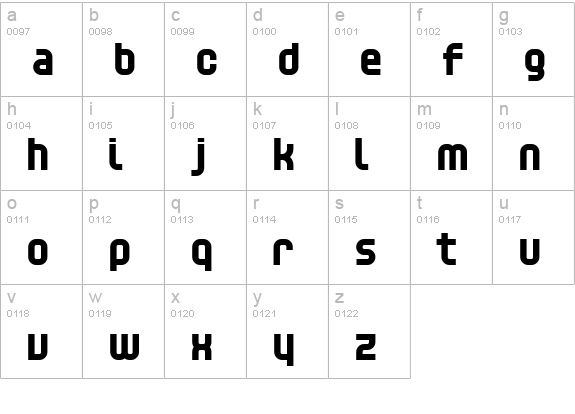
Unisect Black is a maximum-weight, dramatic variant in the Unisect typeface family \xE2\x80\x94 well suited to maximum-impact headlines, posters, and packaging.
Unisect Black font is a stunning display typeface that exudes elegance and sophistication. Its bold and sleek design makes it perfect for creating eye-catching headlines, titles, and logos. With its sharp edges and clean lines, Unisect Black adds a touch of modernity to any design project. This font is not only visually appealing but also highly versatile. It can be used in a wide range of creative projects, from print materials such as posters and brochures to digital designs like websites and social media graphics. Whether you're working on a fashion brand, a tech startup, or a luxury magazine, Unisect Black will elevate your typography to new heights. One of the best things about Unisect Black font is that it is free to download. Yes, you read that right! This amazing font is freely available to download at FontsMarket.com, a popular online platform for font enthusiasts. So, you don't have to worry about breaking the bank to get your hands on this fantastic typeface. Not only does Unisect Black deliver exceptional quality and style, but it also offers ease of use. It comes in a variety of file formats, making it compatible with different design software and platforms. Whether you're a professional graphic designer or a novice, you can easily incorporate this font into your creative projects without any hassle. With its bold presence and timeless appeal, Unisect Black font is sure to make a lasting impression on your audience. It commands attention, conveys a sense of authority, and adds a touch of sophistication to any design. So, if you're looking for a font that combines elegance, versatility, and affordability, look no further than Unisect Black. Download it for free at FontsMarket.com and let your creativity soar.